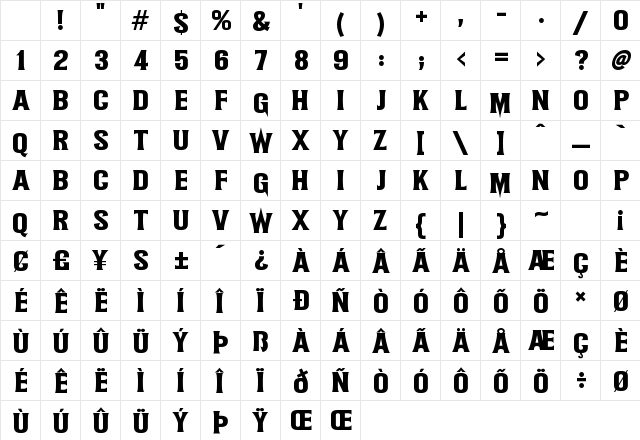
Witch Magic Regular
Designer: Joseph Dawson
Complete Witch Magic Regular glyph index. Displaying only characters natively supported by Witch Magic Regular font.
Design Context for Witch Magic
Witch Magic is a composed and adaptable typeface that performs quietly and consistently across a wide range of design contexts.
Pro Tip: Use Witch Magic in both headline and body roles to test its range before committing to a single application.